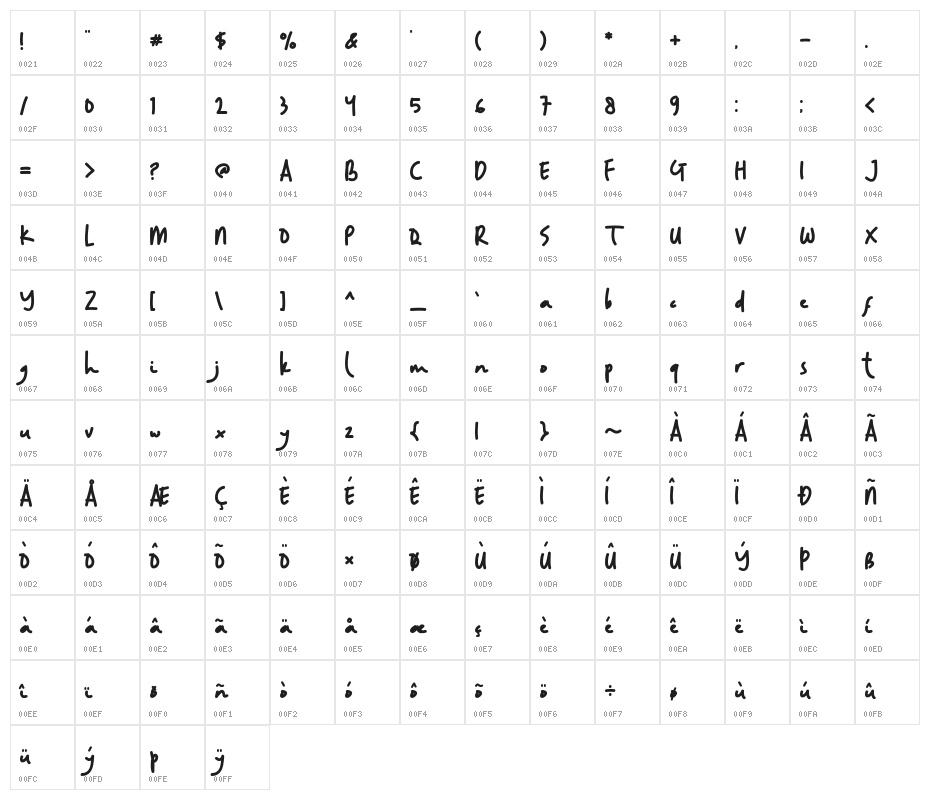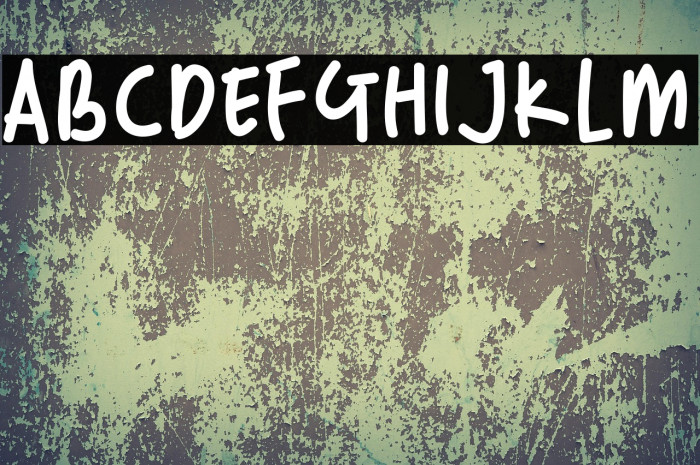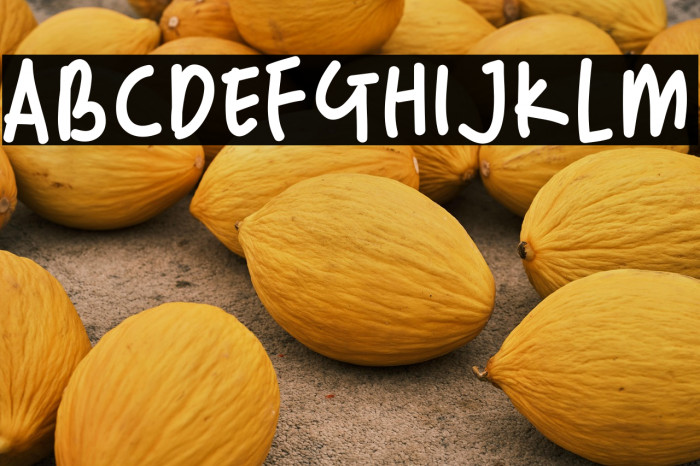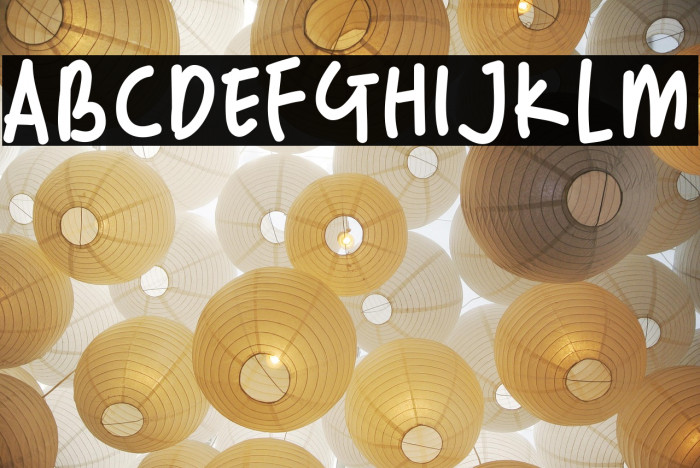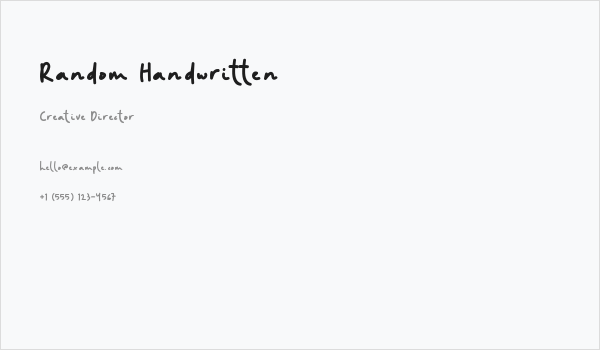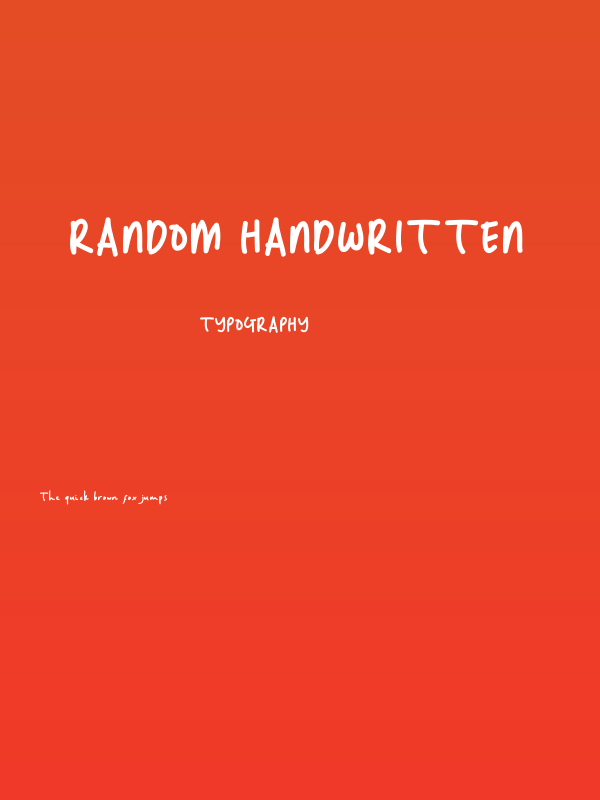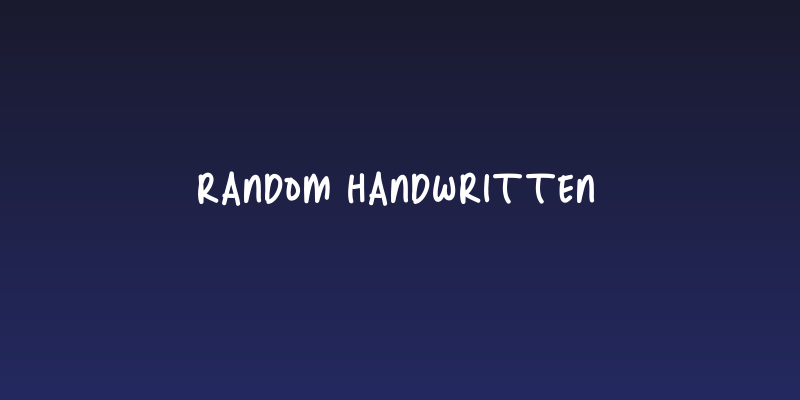
Random Handwritten Font
Random Handwritten Description
This font features a playful and casual handwritten style, characterized by its irregular strokes and organic flow. The letters exhibit a natural, freeform appearance, with varying heights and widths that mimic authentic handwriting. The uppercase and lowercase letters maintain a consistent style, while the numbers and special characters blend seamlessly with the overall aesthetic. The font's informal and approachable nature makes it ideal for projects that require a personal touch or a relaxed vibe.
| Overall Style | Casual |
| Use Case | Logos, Headlines, Informal Text |
| Proposed Projects | Ideal for greeting cards, personal invitations, casual branding, and social media graphics. |